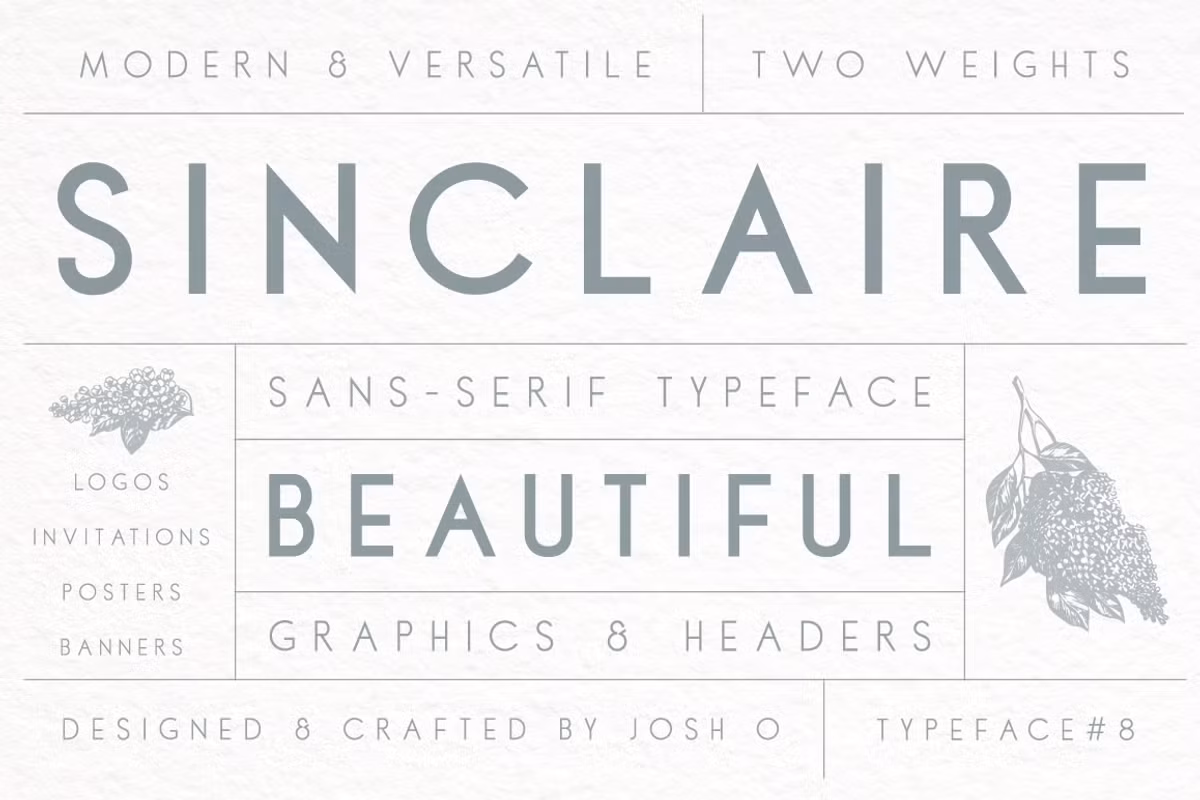
Sinclaire | A Classic Sans Serif Free Download
Sinclaire | A Classic Sans Serif Font Free Download is a clean, timeless typeface designed for versatility across branding, editorial content, web design, and packaging. Its balanced proportions and subtle elegance make it ideal for both modern and traditional design aesthetics. Please note that you must purchase this font for commercial use, but it is available as a free download for testing purposes. Whether you're crafting a minimalist logo or a sleek layout, Sinclaire | A Classic Sans Serif Font Free Download delivers clarity, professionalism, and lasting visual impact.